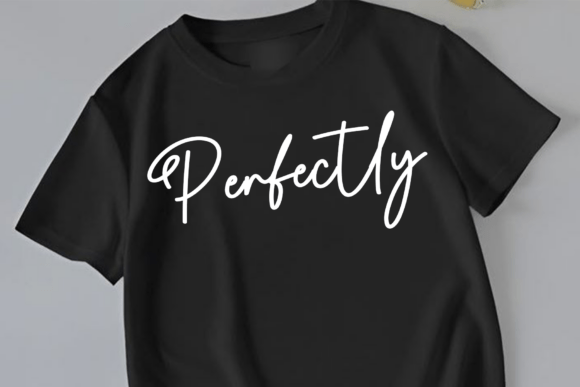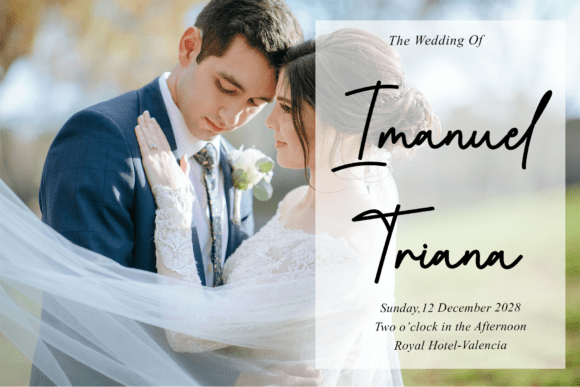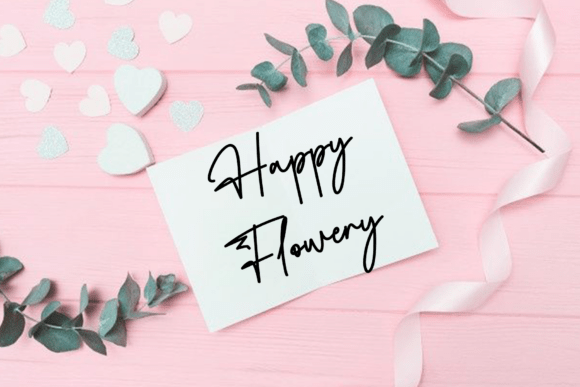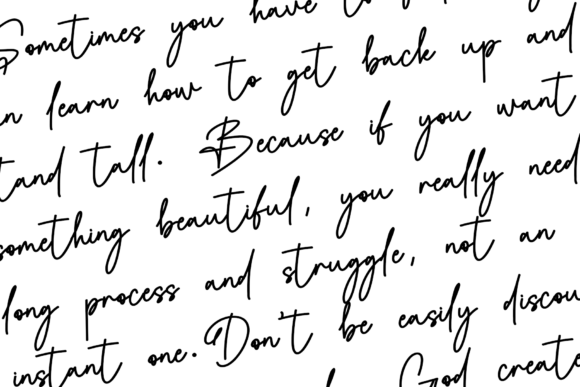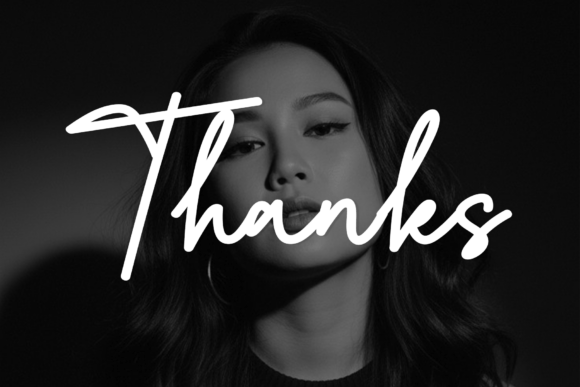
Introducing Demiela Font: Elevate Your Designs with Elegance and Sophistication
In the world of typography, a well-crafted font can make all the difference in elevating your designs to new heights. For designers and crafters seeking to add a touch of luxury and sophistication to their work, Demiela Font is an exceptional choice. This elegant and fluid handwritten script font is designed to capture the essence of modern sophistication, making it perfect for a variety of high-end applications.
What is Demiela Font?
Demiela Font is a beautiful, handwritten script font that exudes elegance and refinement. Its fluid strokes and intricate details create a sense of movement and luxury, making it an ideal choice for designs that require a touch of sophistication. Whether you’re working on luxury wedding stationery, intimate event branding, high-end editorial signatures, or sophisticated lifestyle photography overlays, Demiela Font is sure to impress.
Key Features of Demiela Font
- Elegant and Fluid Design: Demiela Font boasts a smooth, flowing design that adds a touch of sophistication to any project.
- Handwritten Script Style: The font’s handwritten script style gives it a personal and intimate feel, perfect for luxury wedding stationery and event branding.
- Modern and Sophisticated: Demiela Font’s modern design ensures that your work looks contemporary and stylish.
- High-End Applications: The font is suitable for a range of high-end applications, including editorial signatures, lifestyle photography overlays, and more.
Perfect for Luxury Wedding Stationery and Event Branding
When it comes to luxury wedding stationery and event branding, the right font can make all the difference. Demiela Font’s elegant and sophisticated design makes it an ideal choice for:
- Wedding Invitations: Add a touch of luxury to your wedding invitations with Demiela Font.
- Event Branding: Use Demiela Font to create a cohesive and sophisticated brand identity for your intimate events.
- Wedding Stationery: From save-the-date cards to thank-you notes, Demiela Font is perfect for all your wedding stationery needs.
Ideal for High-End Editorial Signatures and Lifestyle Photography Overlays
Demiela Font is not just limited to wedding stationery and event branding. Its sophisticated design also makes it perfect for:
- High-End Editorial Signatures: Add a touch of elegance to your editorial work with Demiela Font.
- Lifestyle Photography Overlays: Use Demiela Font to add a sophisticated touch to your lifestyle photography overlays.
Why Choose Demiela Font?
With so many fonts available, why choose Demiela Font? Here are just a few reasons:
- Unique and Elegant Design: Demiela Font’s unique design sets it apart from other fonts, ensuring your work stands out.
- Versatile: The font is versatile and can be used for a range of applications, from wedding stationery to editorial work.
- Easy to Read: Despite its elegant design, Demiela Font is easy to read, making it perfect for body text and headlines.
In conclusion, Demiela Font is an exceptional choice for designers and crafters seeking to add a touch of luxury and sophistication to their work. Its elegant and fluid handwritten script design makes it perfect for luxury wedding stationery, intimate event branding, high-end editorial signatures, and sophisticated lifestyle photography overlays. With its unique design, versatility, and ease of readability, Demiela Font is sure to elevate your designs to new heights.